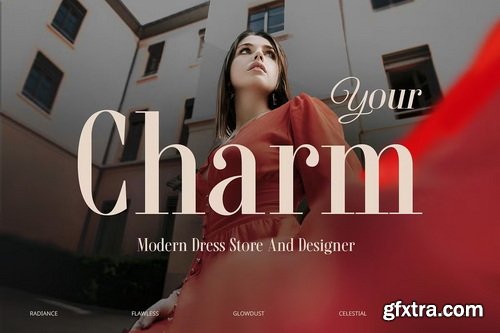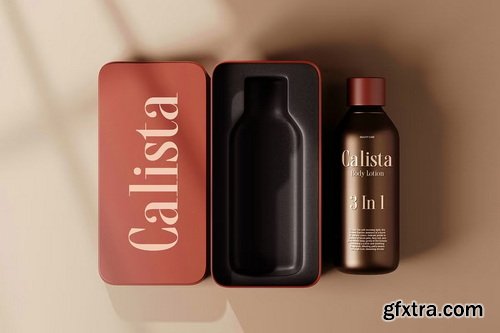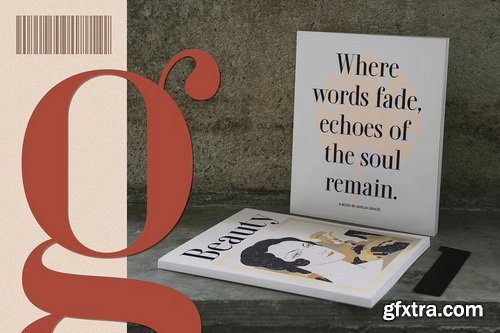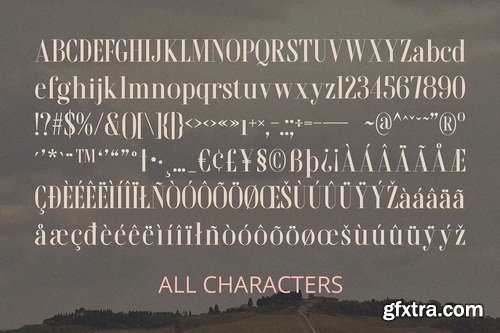
Modern Serif with a Didone Influence CS Quitos is a modern serif font that embodies the sophistication of the Didone style. Featuring high contrast between thick and thin strokes, it creates a bold yet graceful aesthetic that is both timeless and contemporary. Its clean structure and refined details make it perfect for premium branding, fashion magazines, and high-end editorial layouts. Elongated Serifs for a Striking Look One of CS Quitos’ defining features is its long, elegant serifs, which add a sense of grace and distinction. These elongated details create a refined, polished appeal, making the font stand out in luxury packaging, logo design, and sophisticated typography.